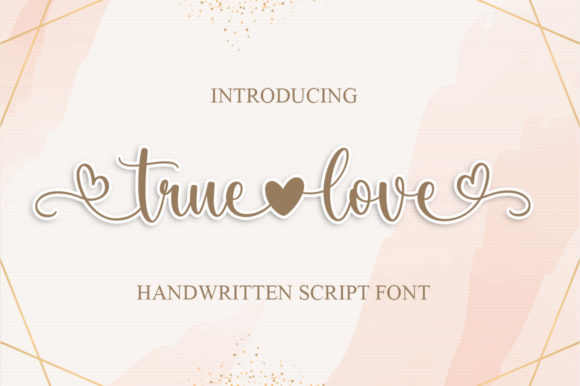
Looking for a font that adds a touch of elegance to your designs? Look no further than True Love Font by Graphix Line Studio. This beautiful script font has a flowing, handwritten style that exudes romance and sophistication.
With its well-balanced characters and unique swashes, True Love Font is versatile enough to use in a wide range of design projects. From wedding invitations to social media graphics, this font will elevate your work and make it stand out from the crowd.
One of the best things about True Love Font is its PUA encoding. This feature makes it incredibly easy to access all of the glyphs and swashes, allowing you to create a truly unique and personalized design.